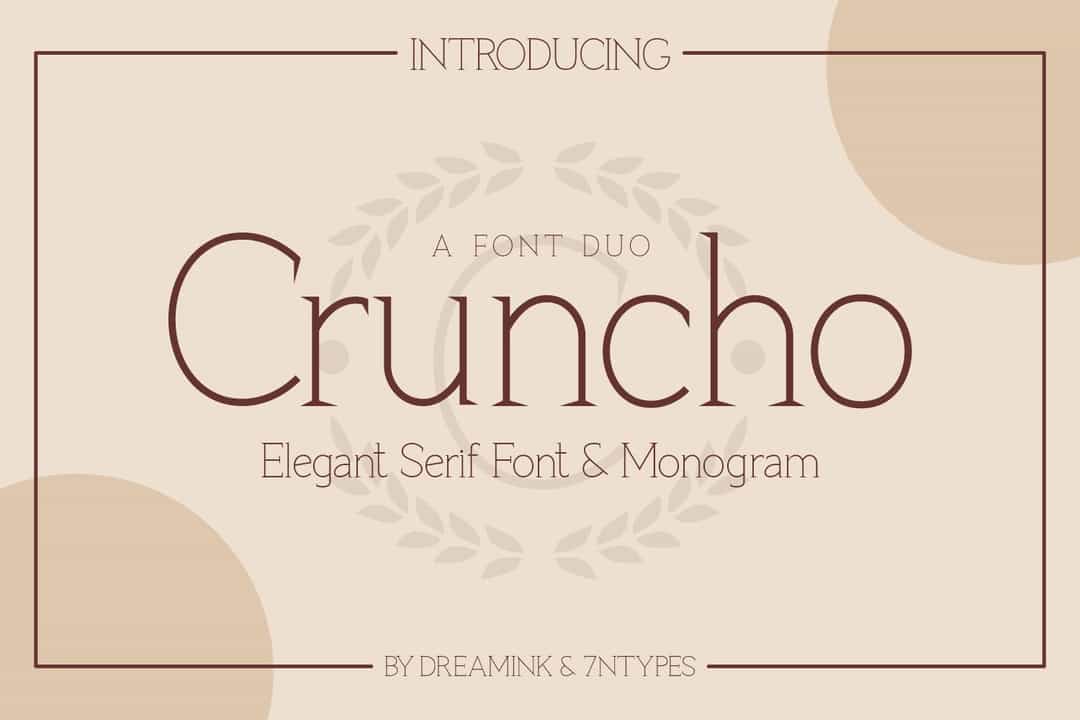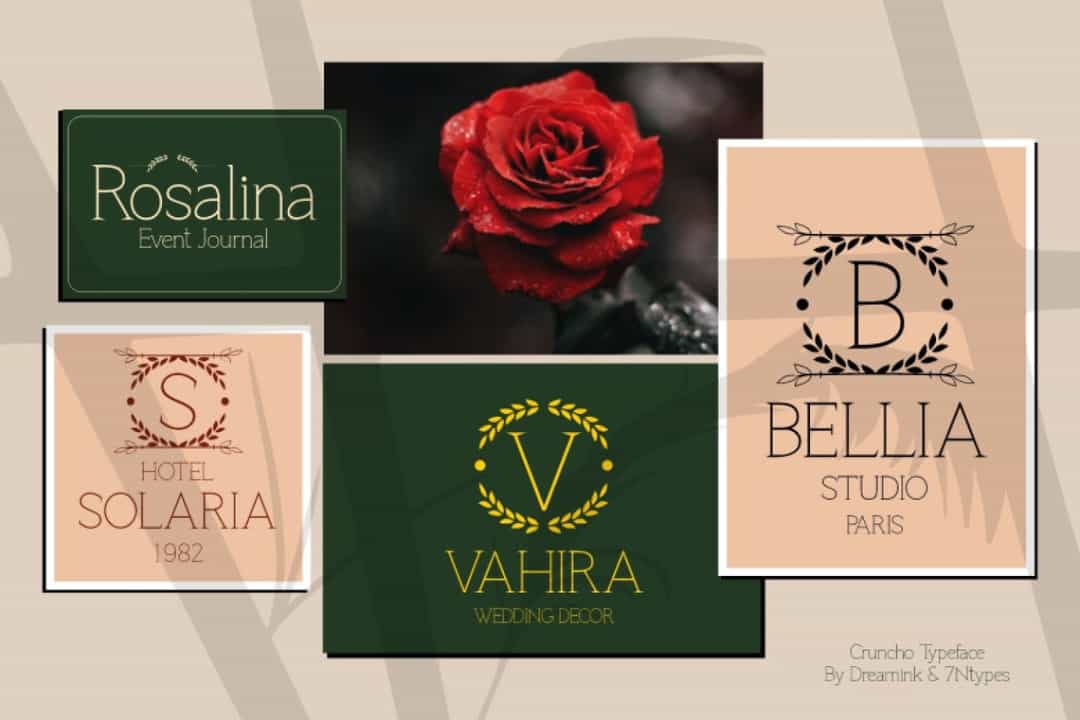
Crunch Elegant is an eye-catching serif typeface with a touch of scifi and technology, created and distributed by 7NTypes. As a beautiful serif font suitable for various designs due to its simple yet elegant style, Cruncho could become your go-to font no matter the situation!